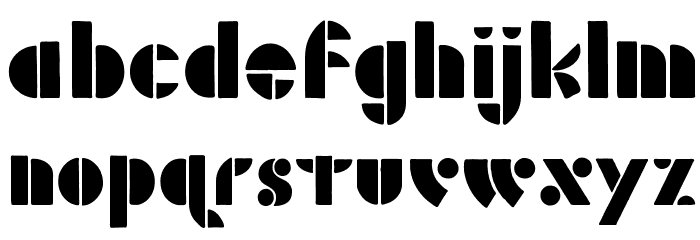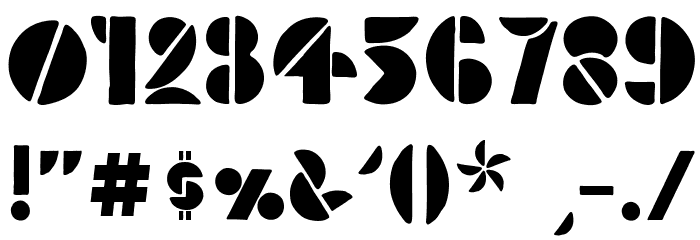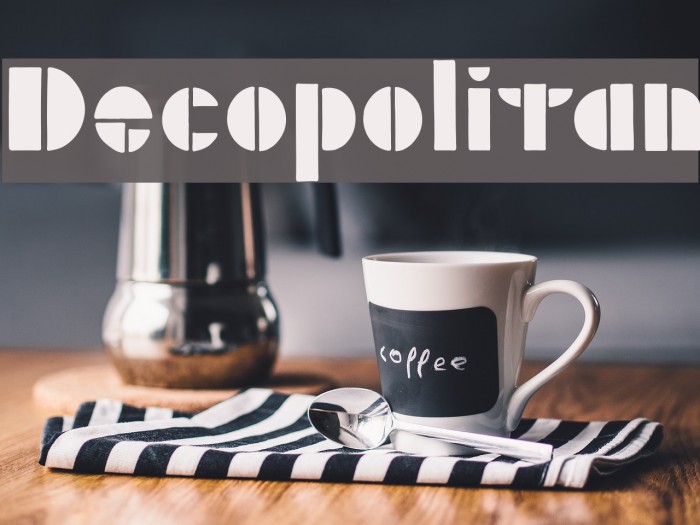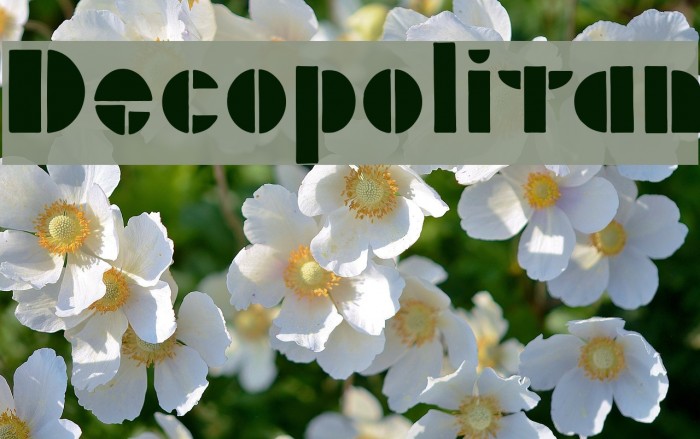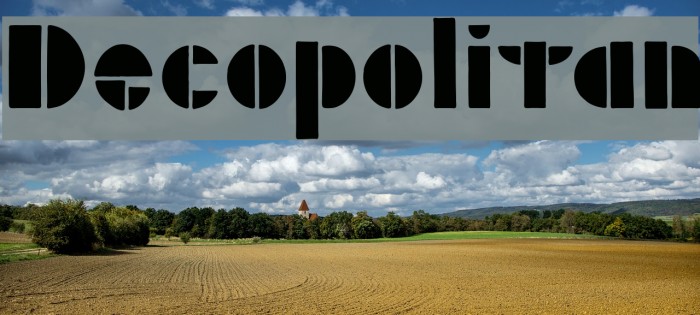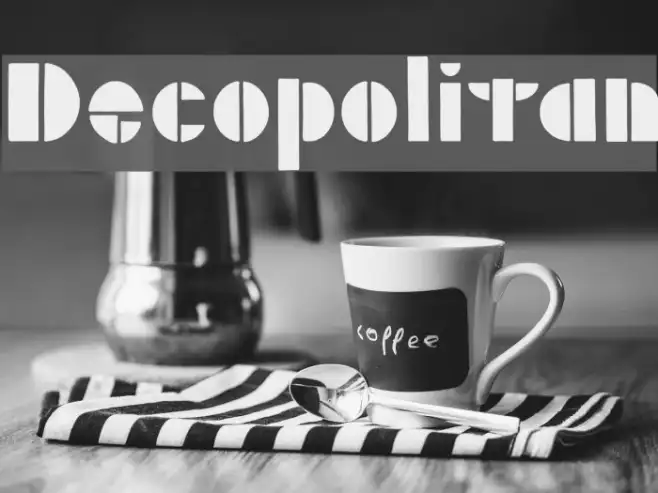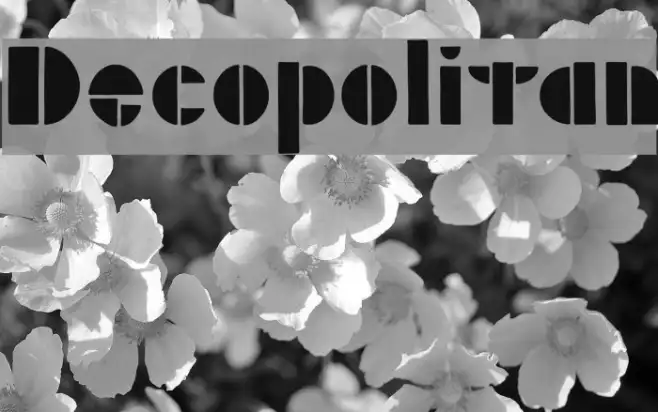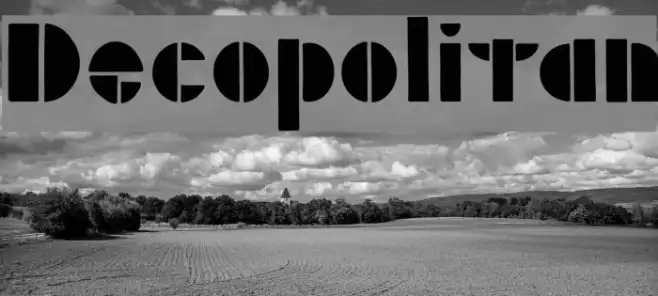
Decopolitan Font
This font features a bold and geometric design, characterized by its use of solid shapes and negative space to form each letter. The uppercase and lowercase letters maintain a consistent style, with rounded edges and a modern, stencil-like appearance. The numbers and special characters follow the same design principles, ensuring uniformity across all characters. The font's unique style makes it stand out, with a strong emphasis on visual impact and creativity. Its boldness and geometric nature make it suitable for projects that require a modern and artistic touch.
A bold, geometric font with a modern, stencil-like design.
- Font: Decopolitan
- Proposed Projects: Ideal for branding, posters, headlines, and any design project that requires a modern and artistic flair.